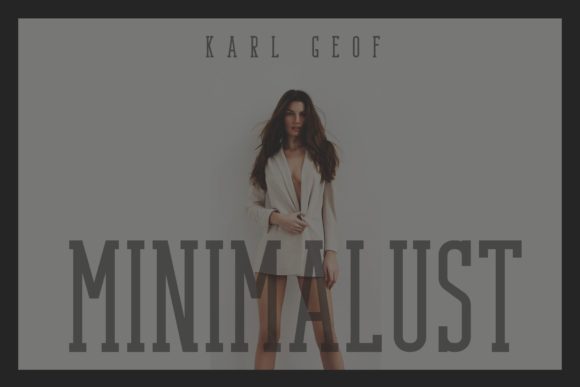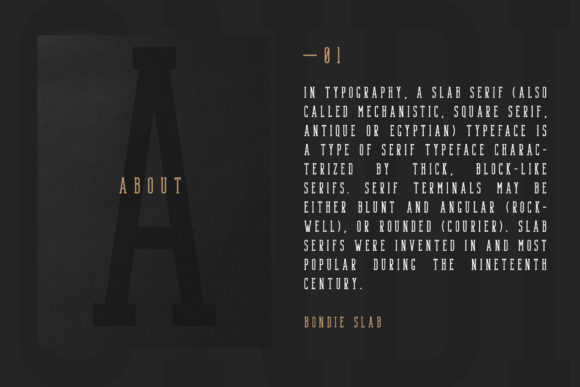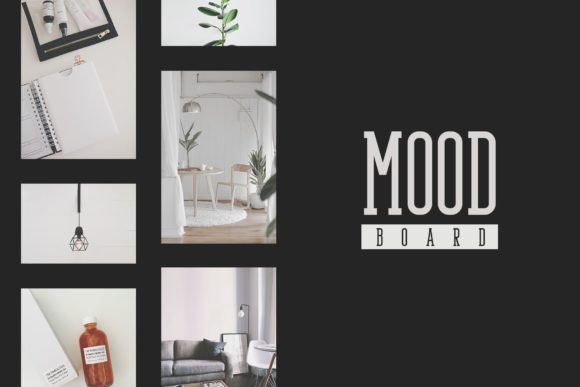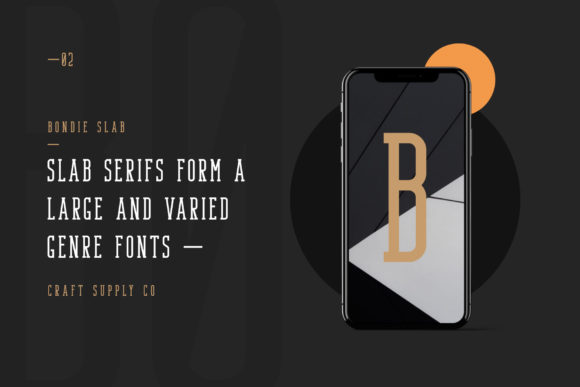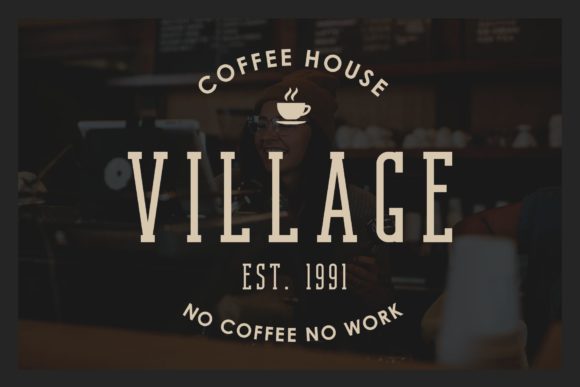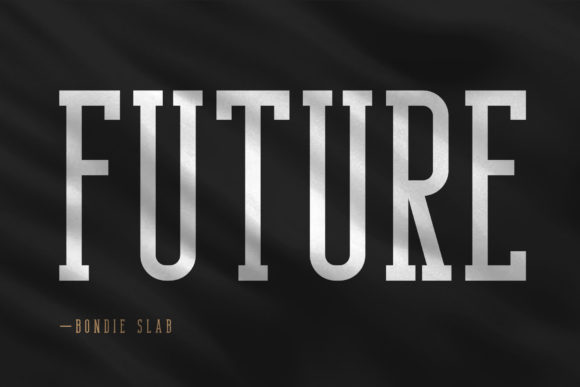
Bondie Font: Elevate Your Designs with Elegance and Sophistication
In the world of typography, fonts play a crucial role in conveying the tone and aesthetic of a design. For designers and crafters looking to add a touch of elegance and sophistication to their projects, the Bondie font is an excellent choice. This stunning, condensed slab serif font is perfect for a wide range of applications, from modern envelopes and hand-drawn watercolor designs to crafting and DIY projects.
The Characteristics of Bondie Font
The Bondie font boasts solid lines and a compact design, making it an ideal choice for designers seeking a clean and modern look. Its elegant, condensed slab serif style gives it a unique and sophisticated appearance that is sure to elevate any design. The font’s versatility allows it to be used in various contexts, from pop vintage designs to modern and minimalist projects.
What Makes Bondie Font Stand Out
So, what sets the Bondie font apart from other fonts? Here are a few key features that make it a standout choice for designers and crafters:
- Elegant and Condensed Design: The Bondie font’s slim, condensed style makes it perfect for designs where space is limited, such as on envelopes, business cards, or social media graphics.
- Slab Serif Style: The font’s slab serif style gives it a sturdy, modern look that works well in a variety of design contexts.
- Solid Lines: The font’s solid lines ensure that it remains clear and legible, even at smaller sizes.
- Versatility: The Bondie font can be used in a wide range of design applications, from digital designs to print materials.
Use Cases for Bondie Font
The Bondie font is suitable for a variety of design projects, including:
- Modern Envelopes: Add a touch of elegance to your envelopes with the Bondie font, perfect for wedding invitations, business correspondence, or special occasions.
- Hand-Drawn Watercolor Designs: The font’s elegant style pairs beautifully with watercolor illustrations, creating a unique and eye-catching design.
- Crafting and DIY Projects: Use the Bondie font to add a personal touch to your crafting and DIY projects, such as handmade cards, gift tags, or scrapbooking.
- Pop Vintage Designs: The font’s slab serif style and condensed design make it a great fit for pop vintage designs, adding a touch of nostalgia and sophistication.
Tips for Using Bondie Font
To get the most out of the Bondie font, here are a few tips to keep in mind:
- Pair with Other Fonts: Experiment with pairing the Bondie font with other fonts to create a unique and visually appealing design.
- Use in Headings and Titles: The Bondie font works well in headings and titles, adding a touch of elegance and sophistication to your design.
The Bondie font is a versatile and elegant choice for designers and crafters looking to add a touch of sophistication to their projects. With its condensed slab serif style, solid lines, and compact design, it’s perfect for a wide range of applications, from modern envelopes and hand-drawn watercolor designs to crafting and DIY projects. Whether you’re a seasoned designer or a crafting enthusiast, the Bondie font is sure to elevate your designs and help you create something truly special.